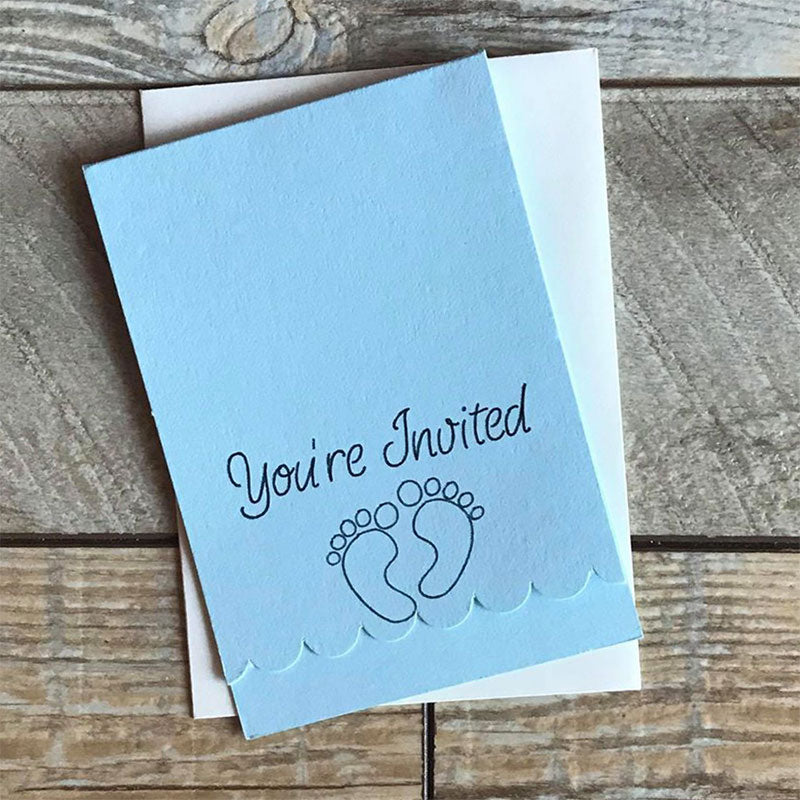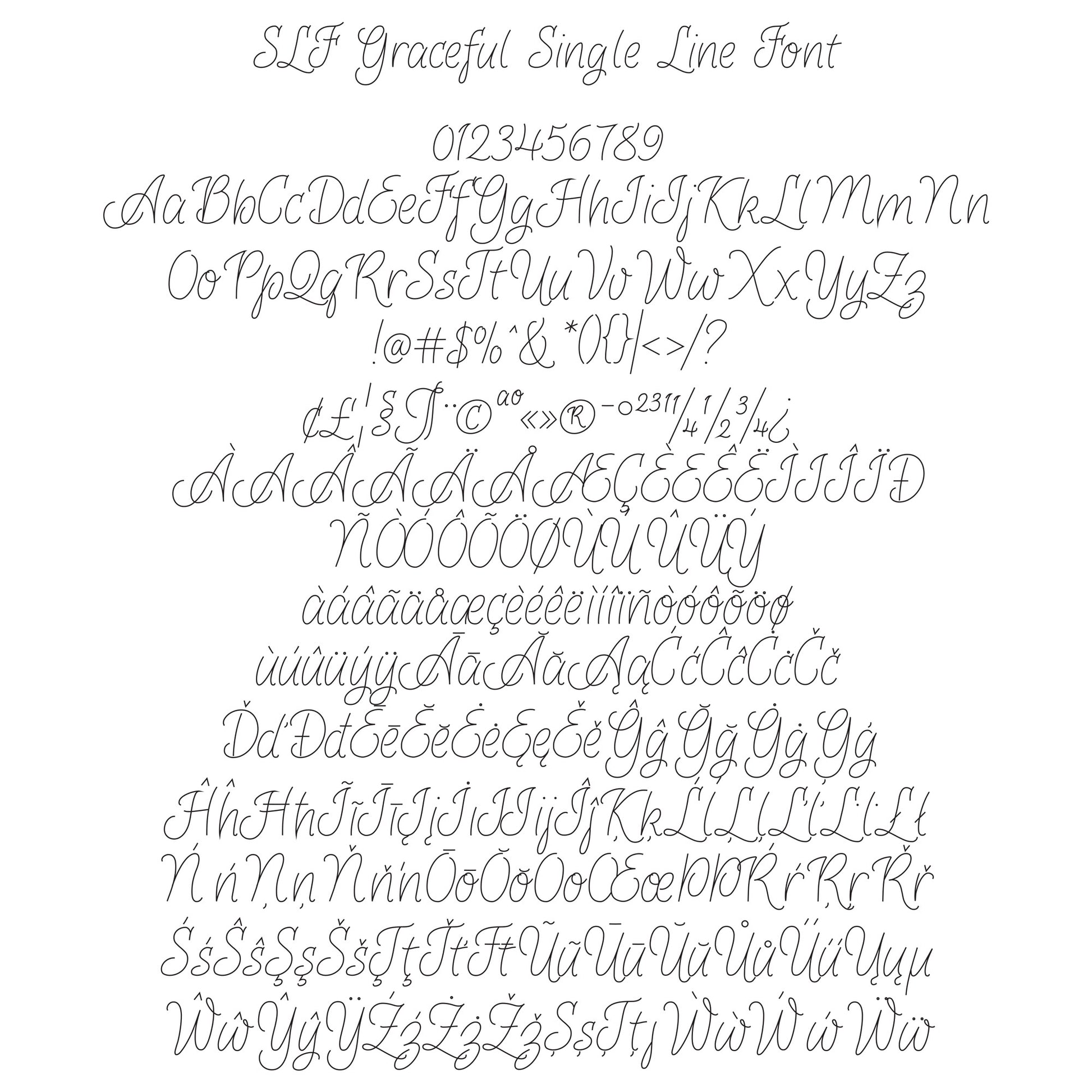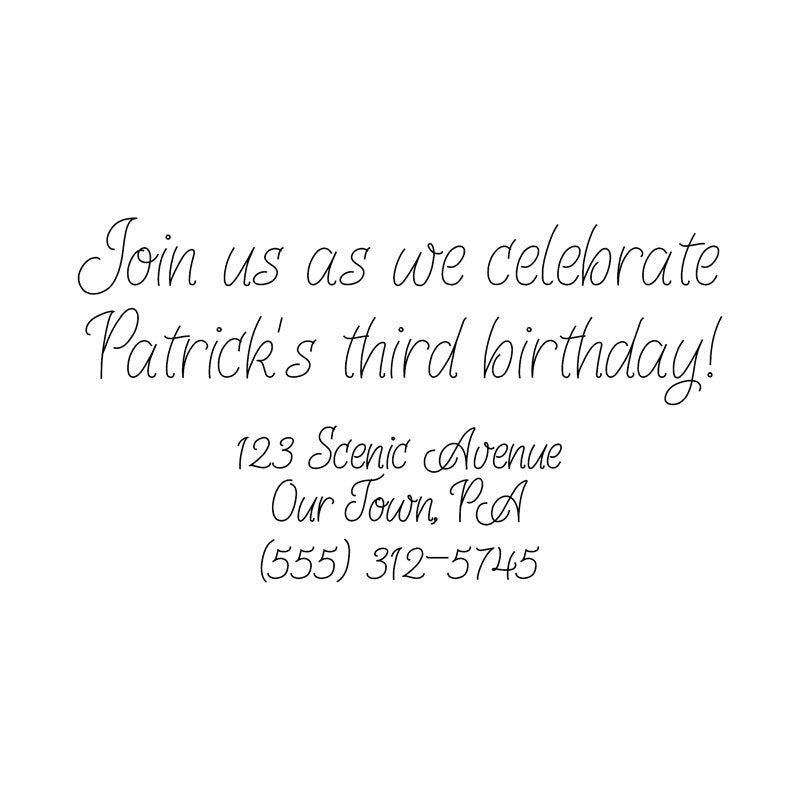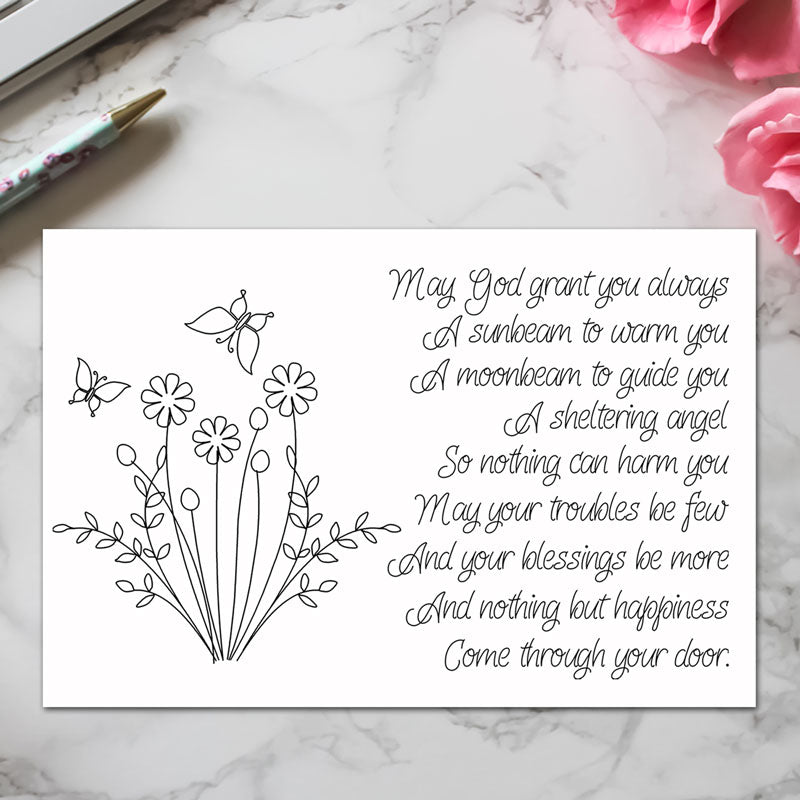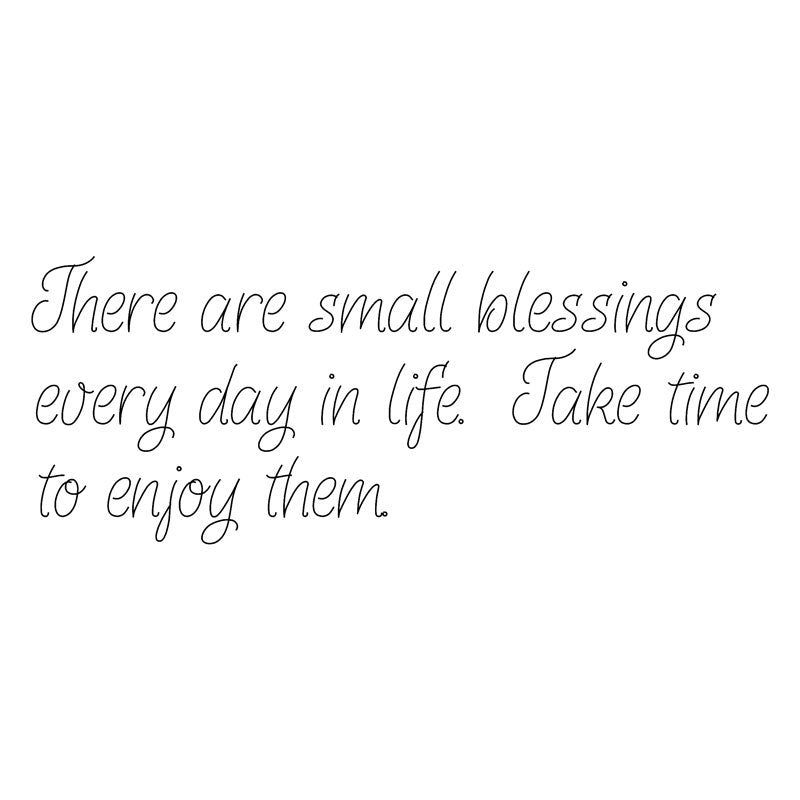
SLF Graceful – Elegant Single Line Script for Foil Quill & Engraving
SLF Graceful is a smooth, elegant single line script designed for clean pen, foil, and engraving workflows. It’s a great choice when you want a refined handwritten look that stays readable and engraves beautifully.
• Foil Quill and pen-tool lettering
• Invitations, cards, and elegant craft projects